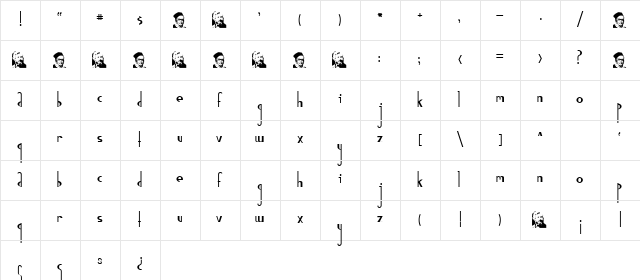
Gauss Jordan Regular
| Designer | Tom Murphy 7 |
Design Context for Gauss Jordan Typeface
Gauss Jordan is a composed and adaptable typeface that performs quietly and consistently across a wide range of design contexts.